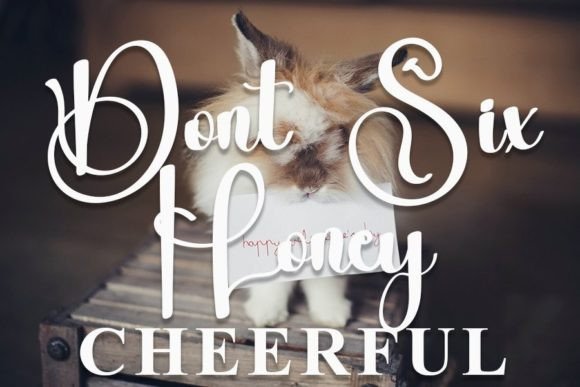
Introduction to Rabbit Font
Remember that moment when you finally found the perfect design element to elevate your creative project? For designers, it’s like hitting the jackpot – everything falls into place, and the vision starts to take shape. For me, it was discovering the enchanting Rabbit Font. Its light, handwritten style added a touch of luxury to my design, making it stand out in a crowd.
As a valuable resource for designers, Rabbit Font offers a unique feel that can’t be replicated with other fonts. Its high-quality design ensures that your creative project exudes sophistication and elegance, making it perfect for a wide range of applications. Whether you’re working on a brochure, social media campaign, or website, this font is sure to make a lasting impression.
Key Features of Rabbit Font
- High-quality design resource ideal for creative projects, including digital art, graphics, and more.
- This unique font features a playful, whimsical design that adds a touch of personality to any creative project.
Honest Review: Rabbit Font
I recently came across the Rabbit Font and was excited to dive in and see what it has to offer. As a designer, I’m always on the lookout for high-quality design resources that can elevate my creative projects. The Rabbit Font definitely fits the bill.
Overall, I’m impressed with the Rabbit Font. It’s a solid addition to any designer’s toolkit and can add a unique touch to creative projects. With a little more development, I think this font has the potential to be a real game-changer.
Rabbit Font
Tips for Getting the Most Out of Rabbit Font
To get the most out of Rabbit Font, try using it in combination with other design elements, such as transparent backgrounds and high-quality images. This will help to create a visually appealing and professional-looking design. You can also experiment with different font sizes and styles to create a unique and eye-catching look.
The Rabbit Font is a versatile design resource that can be used in a variety of creative projects, including:
- Infographics and presentations
- Blog posts and articles
- Marketing materials and brochures
- Website design and development
Alternatives to Rabbit Font